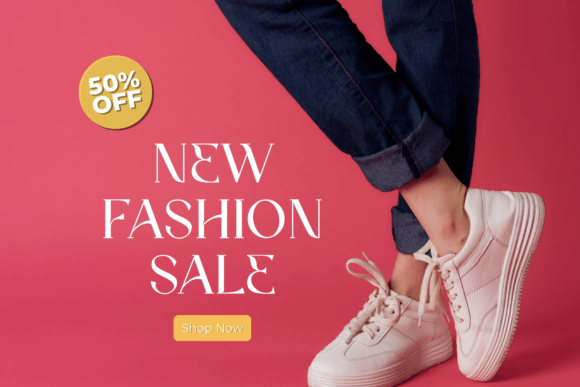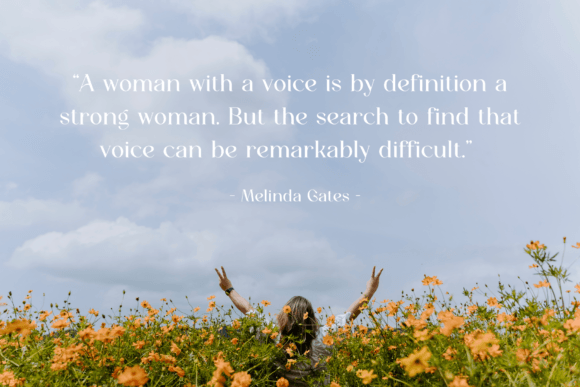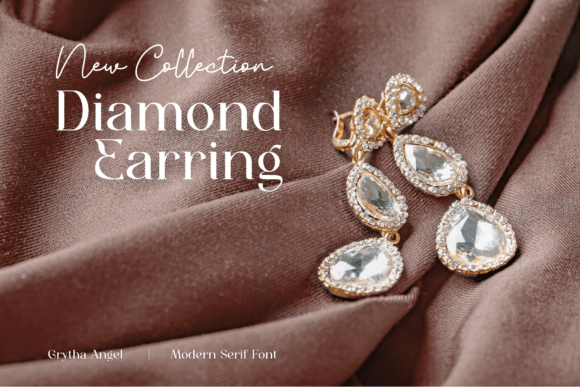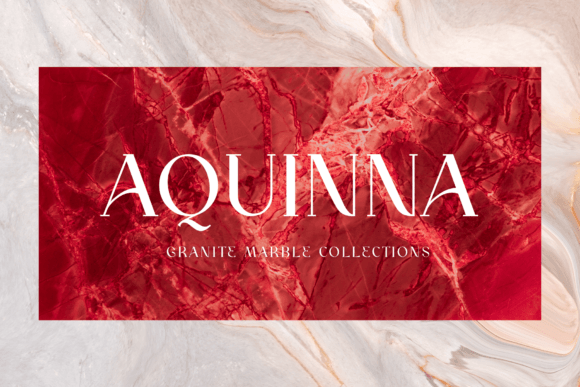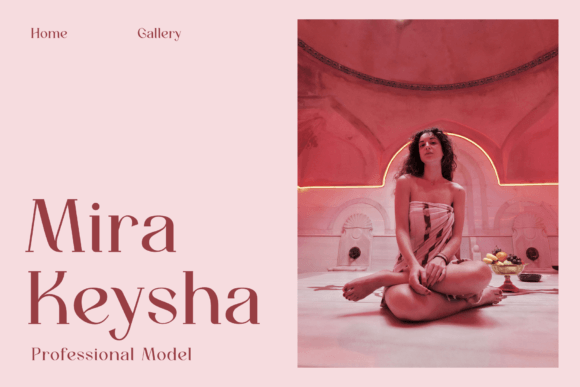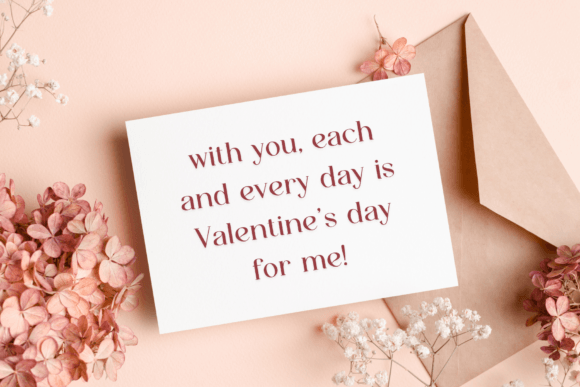
Introduction to Grytha Angel Font
Imagine you’re working on a high-end creative project, and you’re struggling to find the perfect font to match your vision. The design is almost complete, but something’s missing – that special touch that elevates it to the next level. That’s when you stumble upon the Grytha Angel Font, a sophisticated and charming serif font that exudes luxury and style.
As a valuable resource for designers, the Grytha Angel Font is a game-changer. Its fashionable touch and high-quality design make it an ideal choice for deluxe and chic design ideas. With a transparent background and crisp lines, this font is perfect for anyone looking to add a touch of elegance to their creative project.
Whether you’re working on a branding project, a luxury brochure, or a high-end website, the Grytha Angel Font is sure to impress. And the best part? You can download it for free, making it an accessible and valuable addition to your design resource arsenal.
Key Features of Grytha Angel Font
- High-quality design resource ideal for creative projects requiring elegant typography.
- Transparent background allows for seamless integration with various design elements and backgrounds.
- Features a unique, ornate design style with intricate details, perfect for adding a touch of sophistication to any project.
Honest Review: Grytha Angel Font
As a designer, I’m always on the lookout for high-quality fonts to elevate my creative projects. The Grytha Angel Font is a great addition to any design resource library. I downloaded it for free, and I was impressed by its elegant and whimsical feel.
- ✨ Elegant and delicate design that’s perfect for feminine or ethereal themes.
- ✨ High-quality vector graphics that scale well for various design applications.
- ✨ Transparent background, making it easy to use in various design contexts.
- ⚠️ Limited character set, which may not be suitable for longer texts.
- ⚠️ Not ideal for bold or dramatic designs, as it may get lost in the composition.
Overall, the Grytha Angel Font is a great choice for designers who want to add a touch of elegance and whimsy to their creative projects. It’s a solid addition to any design resource library, and I would recommend it to anyone looking for a high-quality, free download.
Introduction to Grytha Angel Font
The Grytha Angel Font is a high-quality design resource available for free download. It features a unique and elegant style, making it perfect for various creative projects. This font is ideal for designers and artists looking for a high-quality, transparent background to add a touch of sophistication to their work.
Tips for Getting the Most Out of Grytha Angel Font
To get the most out of the Grytha Angel Font, try combining it with other high-quality design resources, such as icons and graphics, to create visually stunning designs. Experiment with different font sizes, colors, and arrangements to find the perfect look for your project.
Common Use Cases for Grytha Angel Font
The Grytha Angel Font is perfect for a variety of creative projects, including:
- Business cards and logos
- Menu designs and packaging